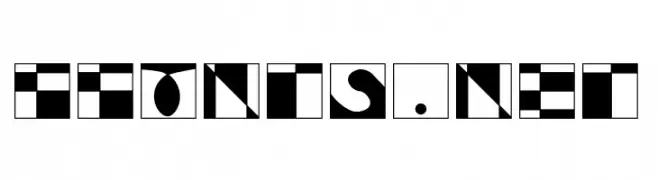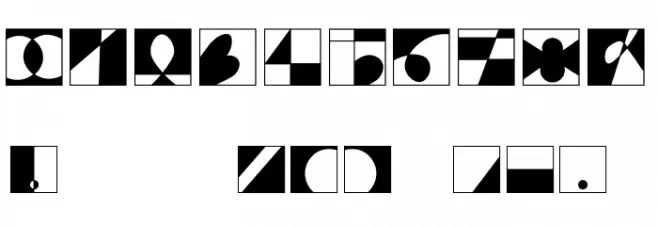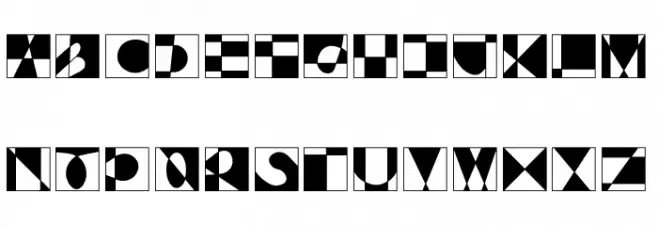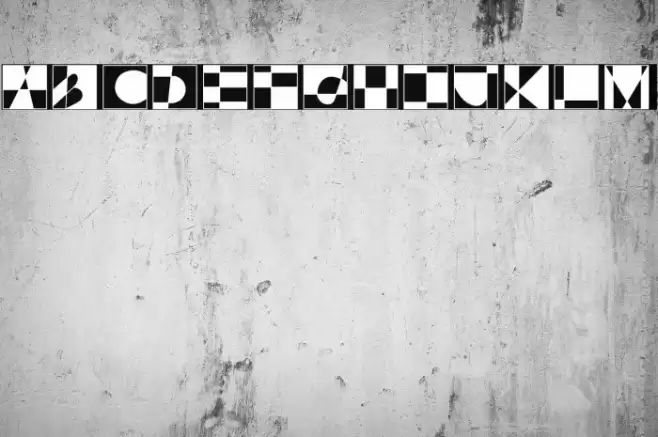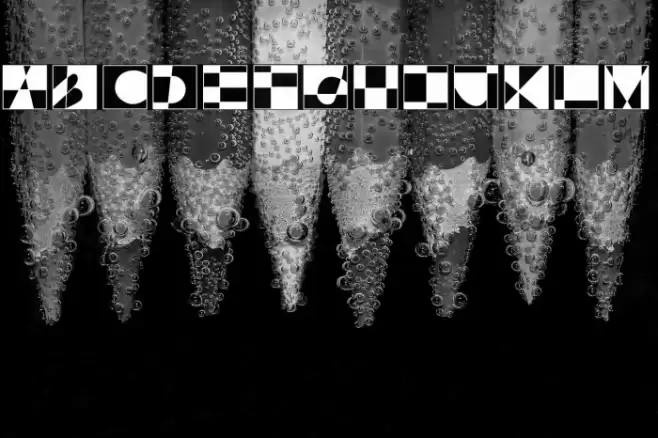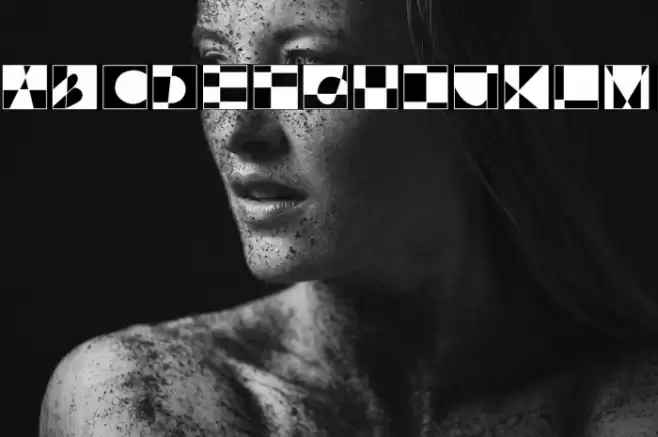
Lixie Abstract Font
Lixie Abstract Description
A geometric, modular display font with a bold, stylized appearance, featuring a mix of sharp angles and rounded shapes within square blocks.
| Overall Style | Modern, Geometric |